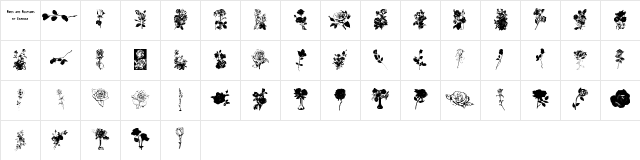
Buds and Blossoms Regular
Design Context for Buds and Blossoms
Buds and Blossoms is a composed and adaptable typeface that performs quietly and consistently across a wide range of design contexts.